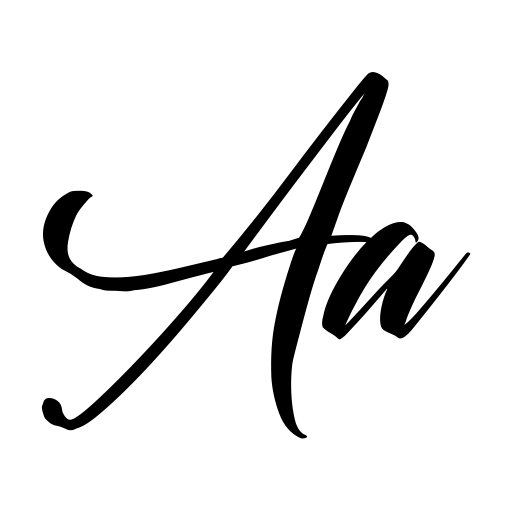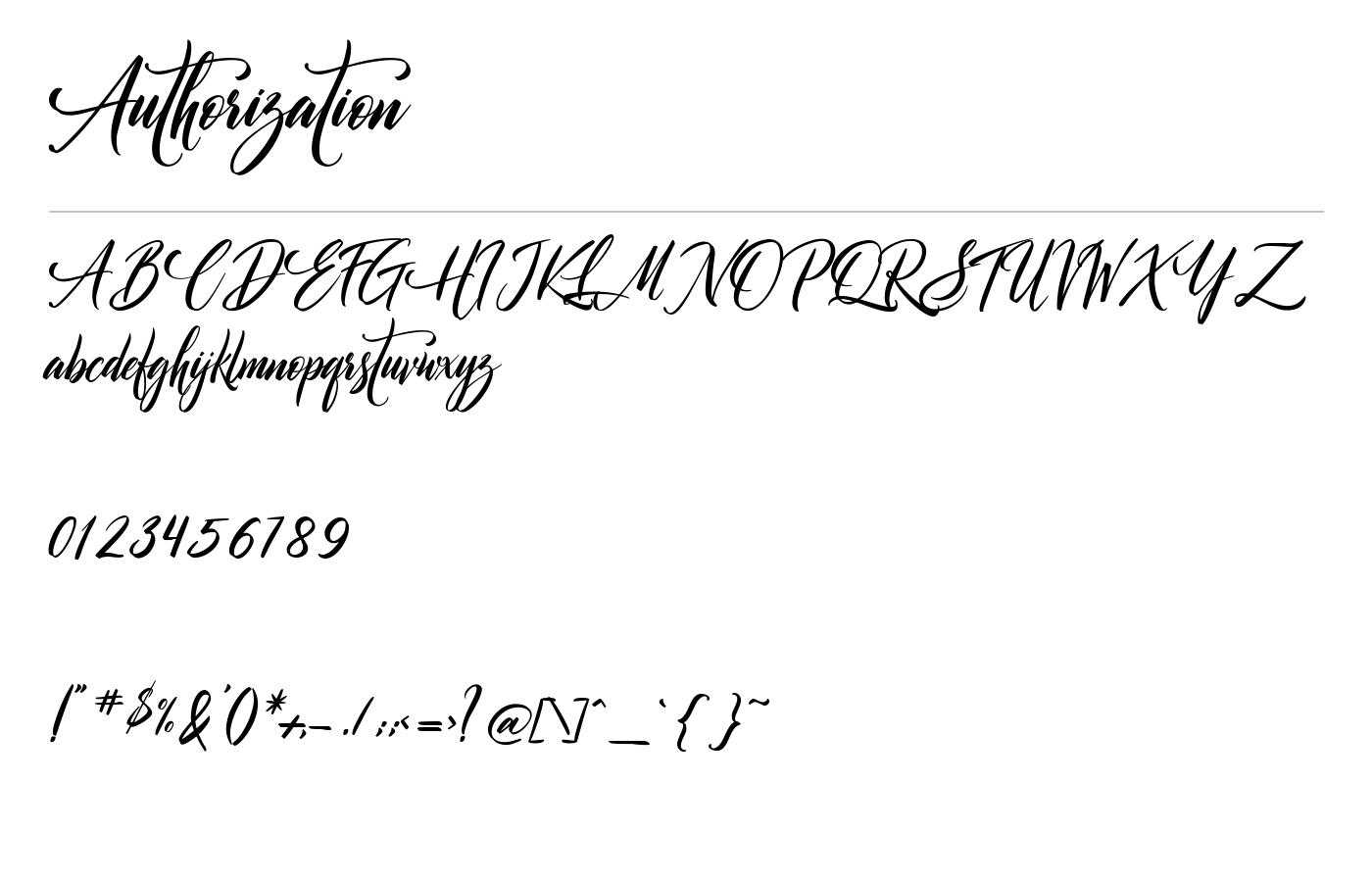
Authorization Font is a stylish script typeface with elegant, flowing strokes and a handwritten feel. Its delicate yet dynamic letterforms create a sophisticated and personal touch, making it perfect for invitations, branding, and creative projects that need a graceful, artistic flair. This font works especially well for luxury or fashion contexts where a refined, distinctive look is desired.
Authorization Font
About Authorization Font